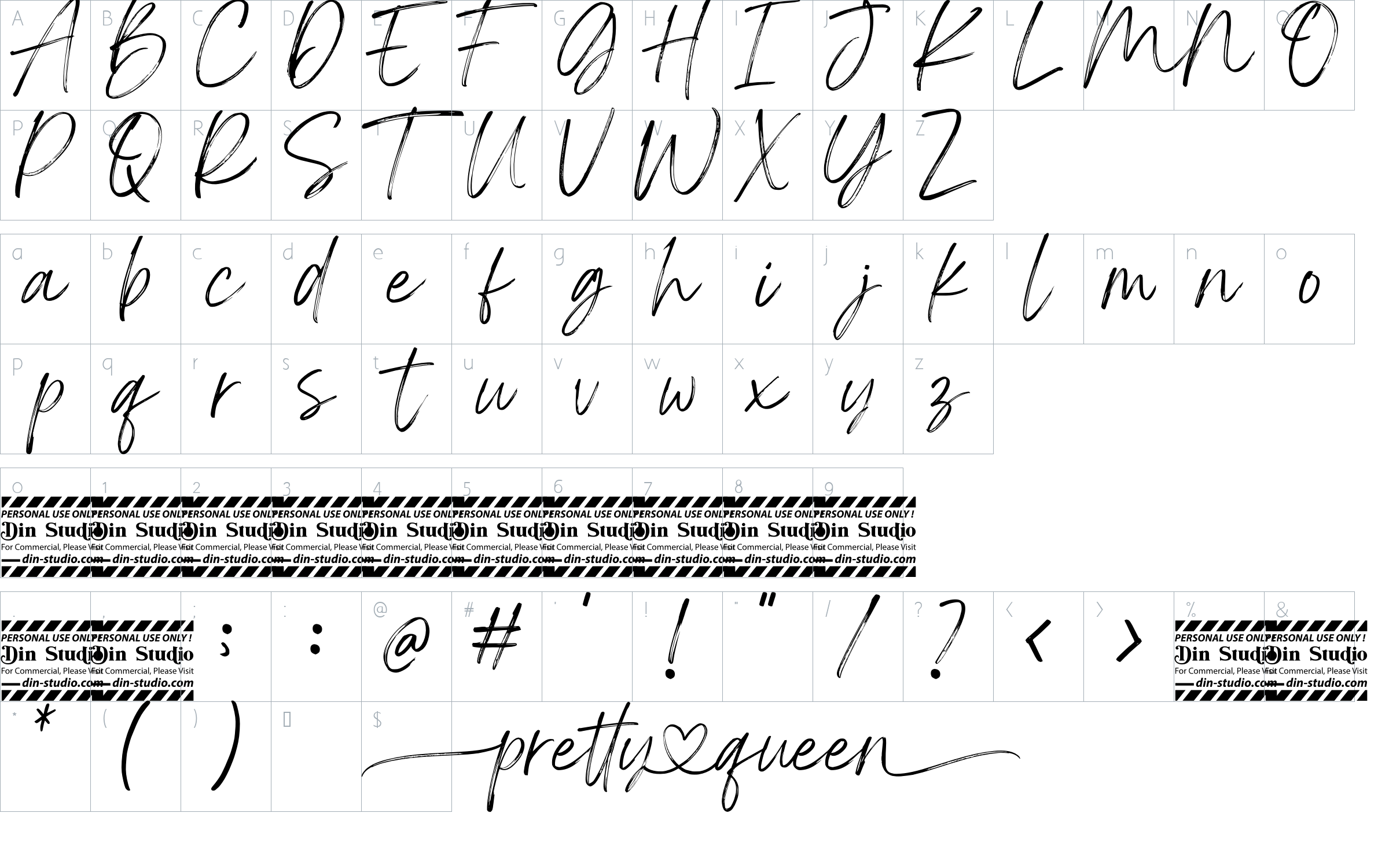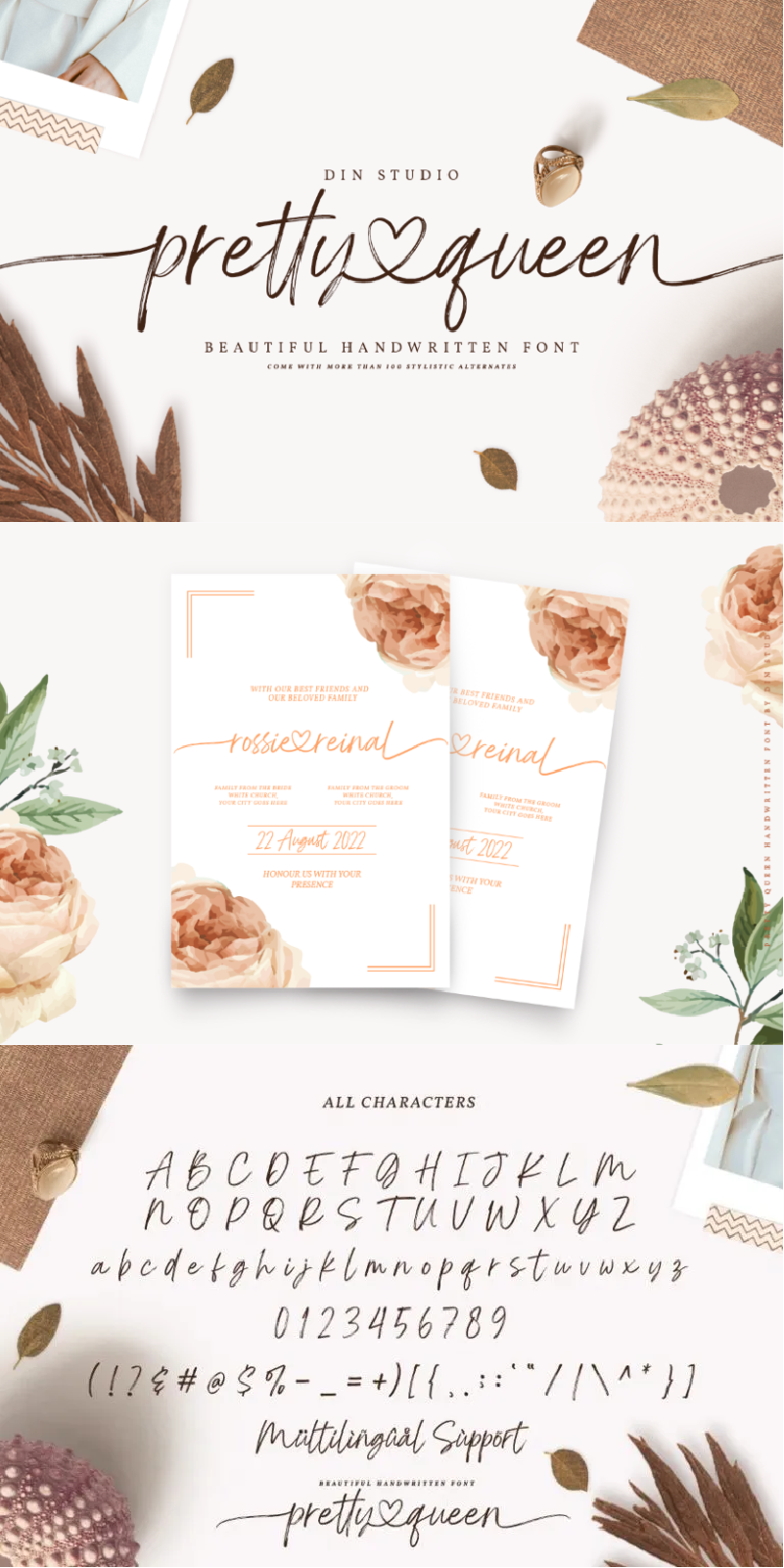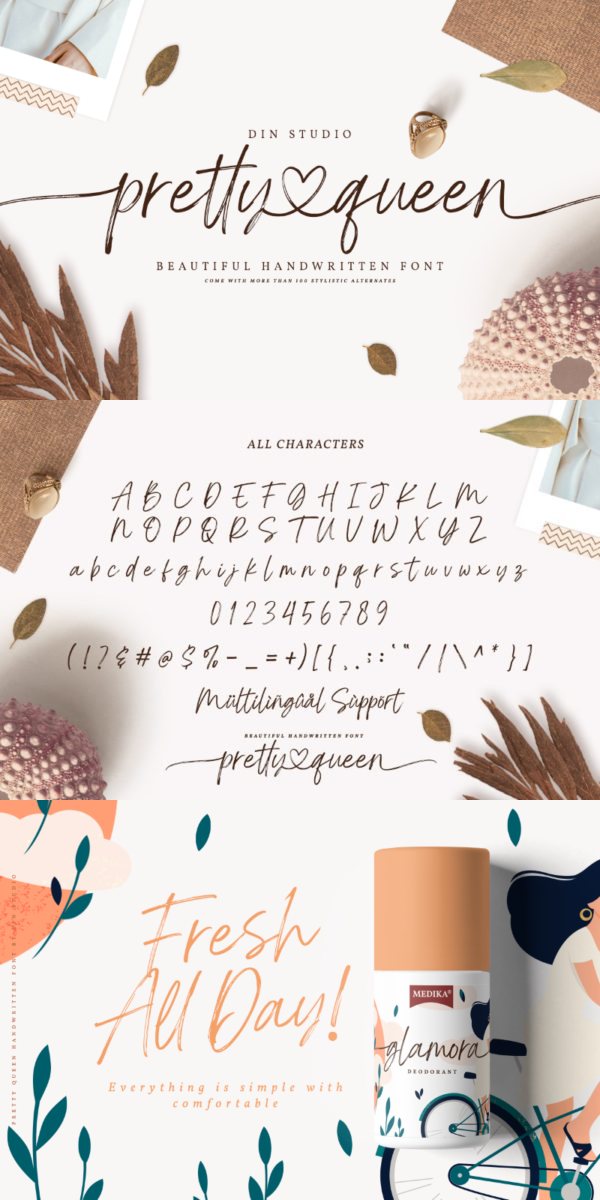
Pretty Queen Font
About Pretty Queen
Pretty Queen is a beautiful brush signature font made for any professional project brandings. Every letter has a unique and beautiful touch. It is made by our talented font designers. The font includes a full set of handwritten uppercase and lowercase letters, numerals, punctuations, and ligatures.
- 52 Stylish Sets
- 26 Uppercase Alternates
- 8 Ligatures